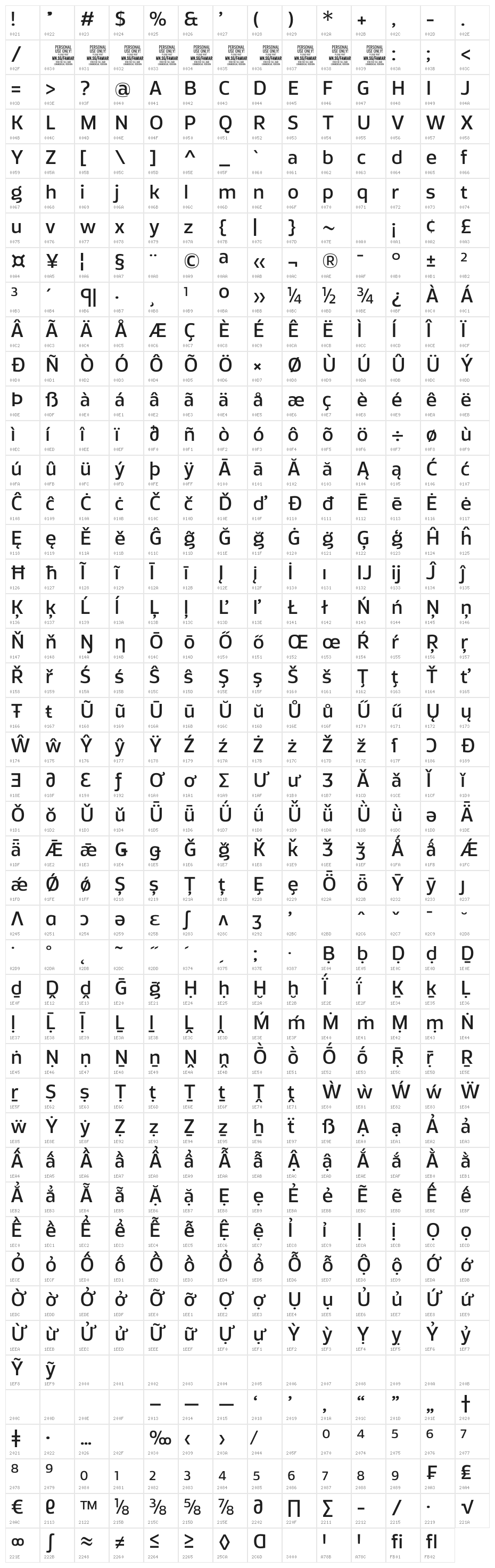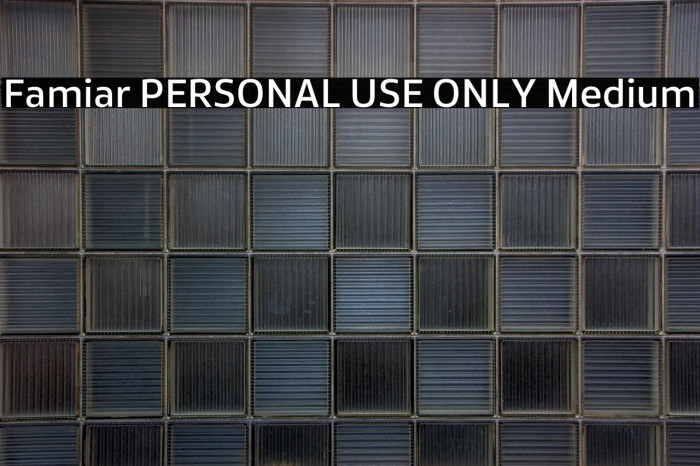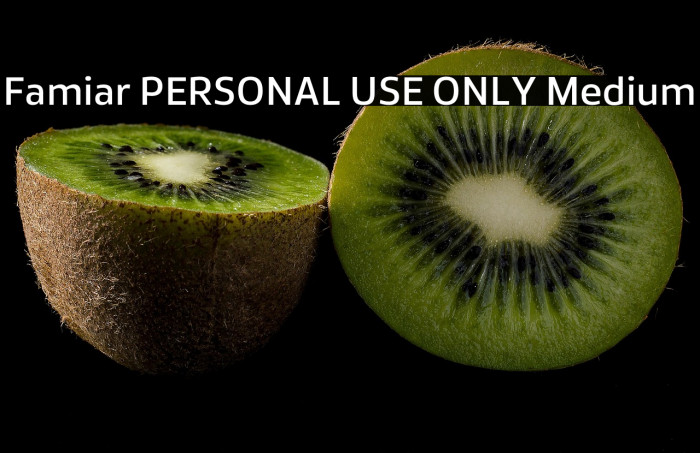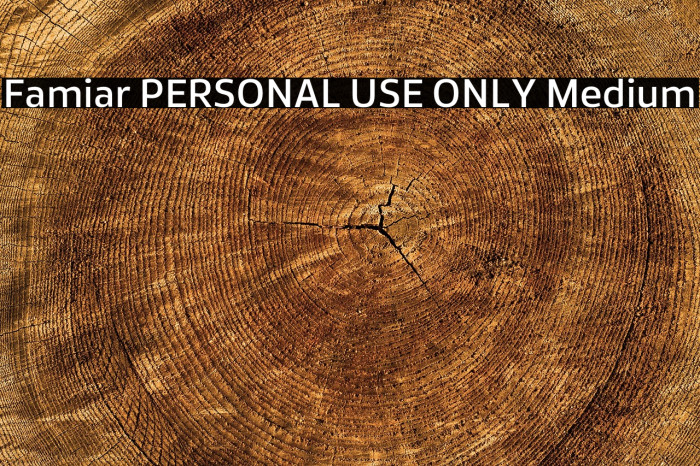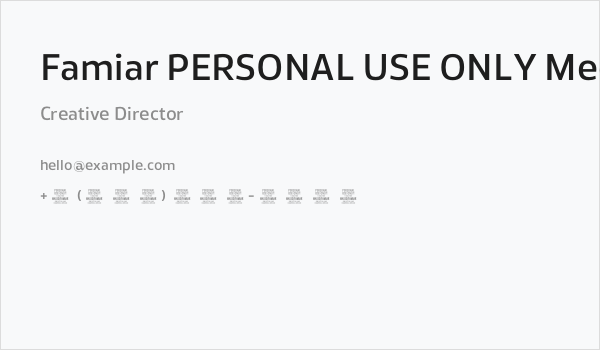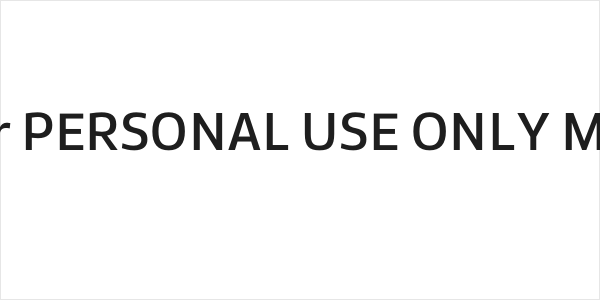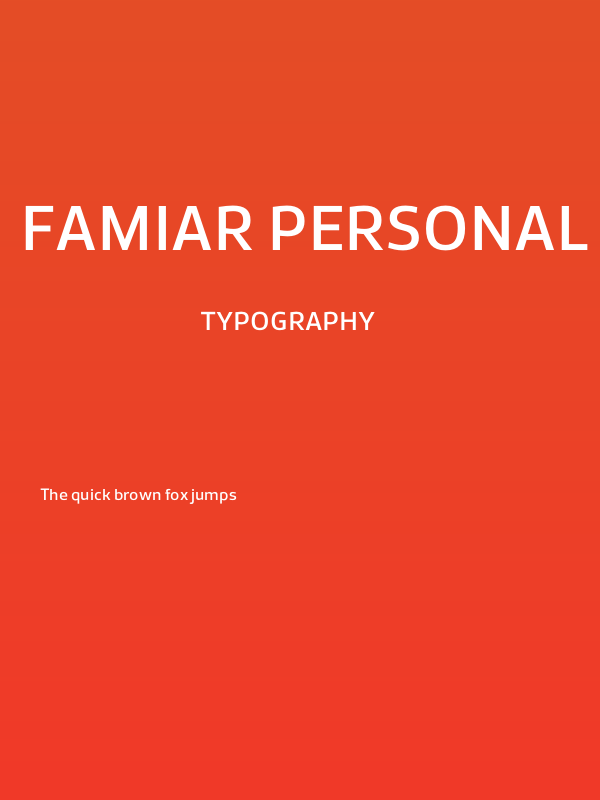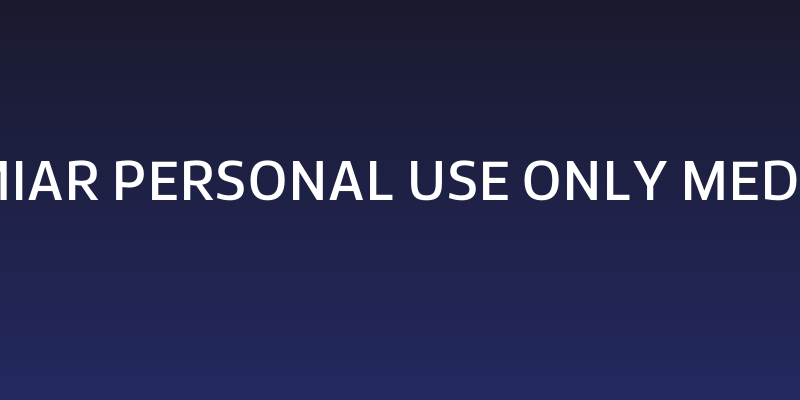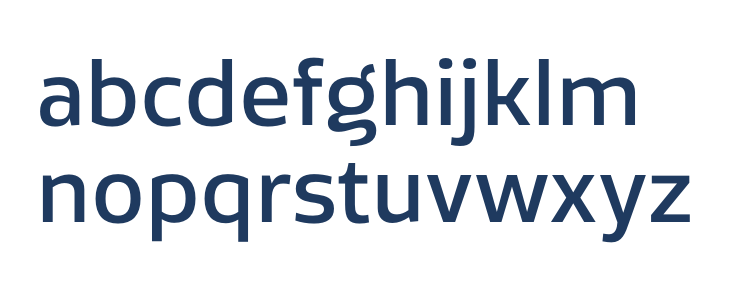
Famiar PERSONAL USE ONLY Medium Font
Famiar PERSONAL USE ONLY Medium Description
This font presents a clean and modern sans-serif style with a balanced and uniform appearance. The characters are well-proportioned, featuring smooth curves and straight lines that create a harmonious look. The uppercase letters are bold and impactful, while the lowercase letters maintain a consistent height and width, ensuring readability. The numerals are clear and distinct, matching the overall style of the alphabet. Special characters are included, offering versatility for various uses. The font's simplicity and clarity make it suitable for both digital and print media, providing a professional and contemporary aesthetic.